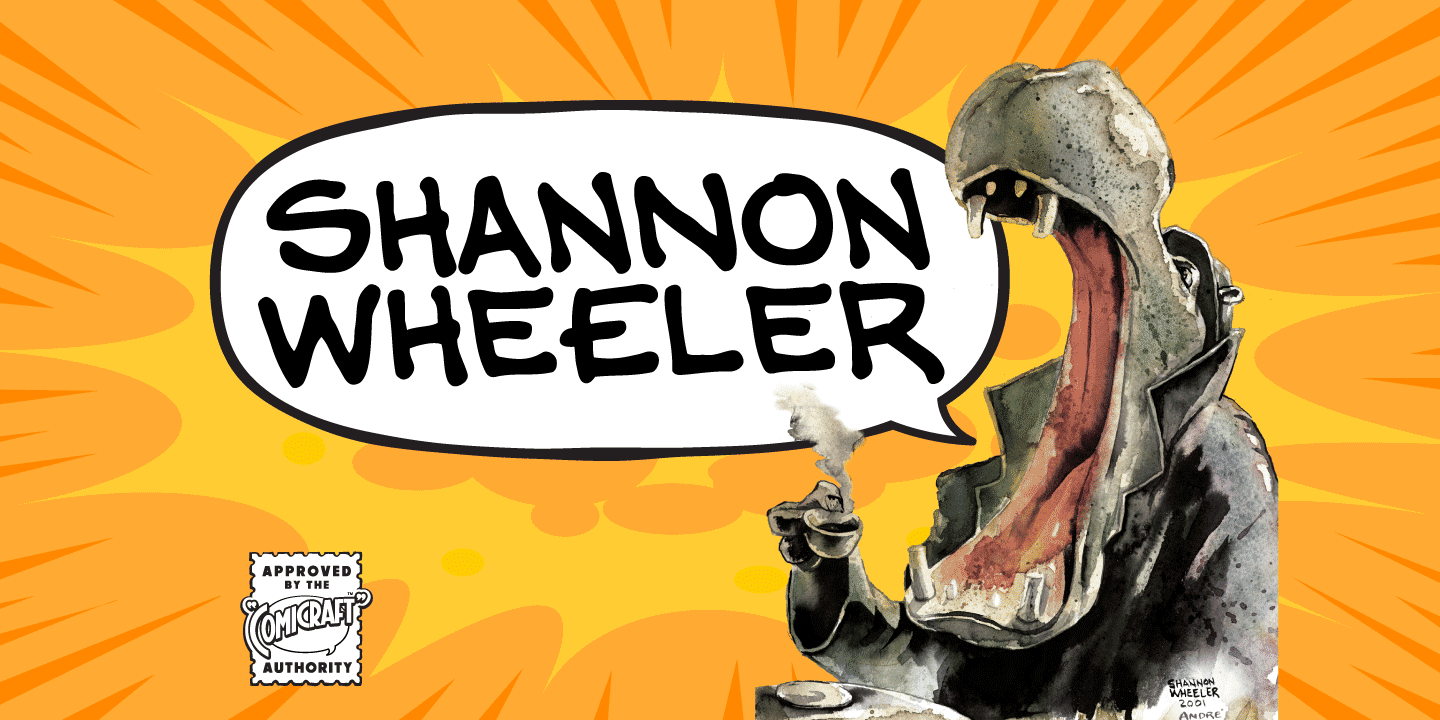
The Shannon Wheeler Font is exceptionally suited for numerous creative and artistic applications including comic book lettering, graphic novel publications, cartoon character designs, indie comic projects, zine publications, alternative art magazines, creative workshop materials, underground comic promotions, artistic portfolio presentations, and experimental design projects. Its distinctive character makes it particularly effective for comic artists, independent publishers, graphic designers, and creative professionals seeking to convey artistic authenticity, alternative culture aesthetics, and hand-drawn charm in their visual communications and creative presentations.
What makes the Shannon Wheeler Font extraordinarily exciting is its authentic capture of hand-lettered comic artistry combined with professional typographic functionality. This unique typeface embodies the essence of independent comic culture and alternative artistic expression while incorporating contemporary design elements that ensure optimal performance across various creative media platforms. The font's captivating character emerges from its organic letterforms, artistic irregularities, and carefully crafted details that evoke a sense of creative authenticity and underground artistic spirit, making it perfect for creators seeking to establish credibility in alternative art communities and appeal to indie-minded audiences.
The Shannon Wheeler Font family offers a comprehensive collection of weights and styles designed to accommodate various artistic and creative requirements. The collection typically includes regular, bold, and expressive variants, with many versions featuring hand-drawn alternates and organic variations that enhance the font's authentic comic book appeal and artistic character. Some editions may include decorative elements, comic-style punctuation, and artistic flourishes that provide additional design options for creating unique typographic treatments and underground comic applications.
Comic artists and independent creative professionals consistently select the Shannon Wheeler Font Free Download for its exceptional authenticity and artistic impact. The font features carefully balanced spacing and kerning that maintains readability while preserving its distinctive hand-lettered character, ensuring effective communication across various comic and artistic applications. Its robust construction works well in both digital and print environments, while the comprehensive character set includes uppercase and lowercase letters, numerals, punctuation marks, and special symbols, along with language support for international comic projects and global alternative art communications.
The Shannon Wheeler Font represents the perfect preservation of comic book heritage combined with contemporary creative functionality. Its authentic aesthetic appeals to comic enthusiasts while maintaining the professionalism required for serious artistic applications. The font's remarkable adaptability allows it to work effectively in both traditional comic contexts and modern graphic design projects, ensuring consistent artistic appeal across comic publications, zine layouts, alternative art materials, and creative branding campaigns.
Embrace artistic authenticity and comic book culture with the hand-drawn charm and creative spirit of the Shannon Wheeler Font, the ultimate choice for alternative comic typography excellence.